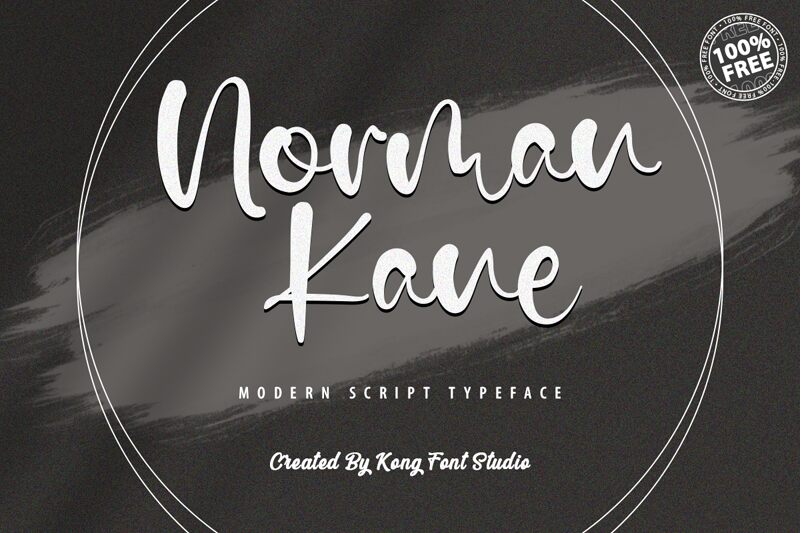
Norman Kane
Say hello to Norman Kane, the handwritten font designed by Kong Font. It exudes a casual and friendly vibe, making it perfect for projects that need that personal touch. Its variable weight allows you to play around with the thickness of each stroke, making it ideal for use in logos, greeting cards, invitations, and more. Whether you're designing a menu for a small café or creating branding materials for a new startup, Norman Kane is versatile enough to suit all your needs. Give your projects the perfect touch of personality with this charming font!